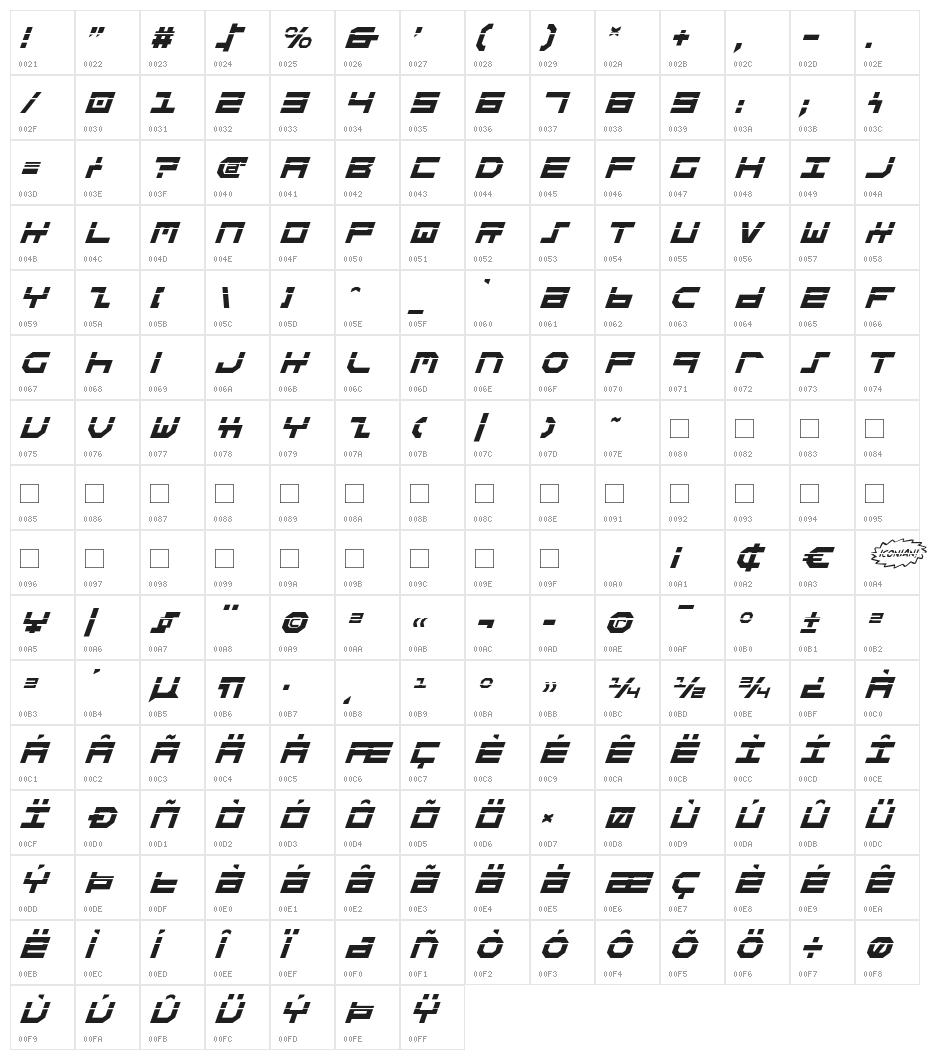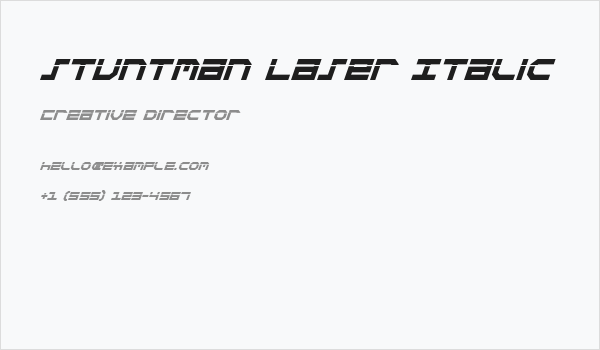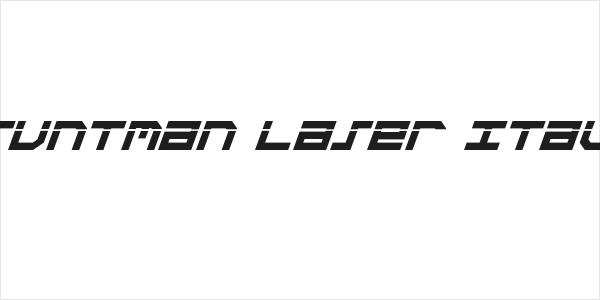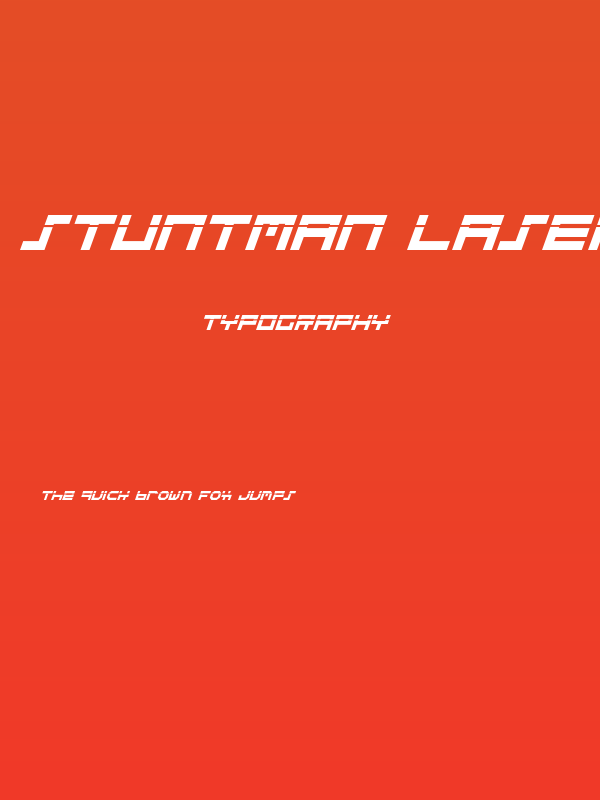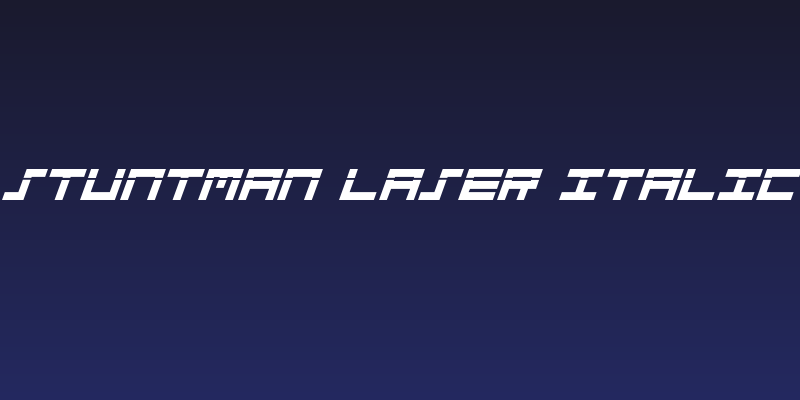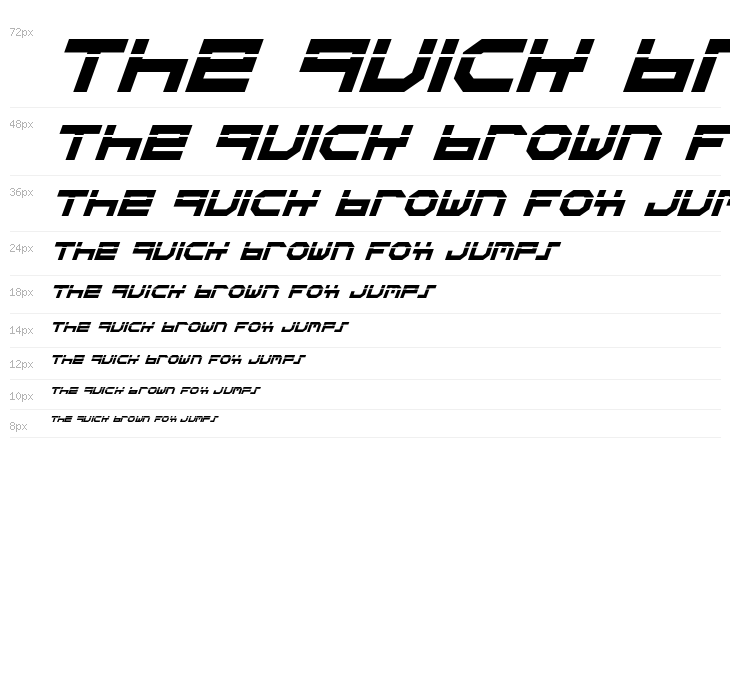
Stuntman Laser Italic Font
Stuntman Laser Italic Description
This font features a futuristic and angular design, characterized by its sharp edges and geometric shapes. The letters are slanted, giving it an italicized appearance, and the style is reminiscent of digital or sci-fi aesthetics. The uppercase and lowercase letters maintain a consistent angular theme, with each character having a unique, bold structure. Numbers and special characters follow the same design principles, ensuring uniformity across the font. The overall look is dynamic and energetic, suitable for projects that require a modern and tech-savvy feel.
| Proposed Projects | Ideal for video game titles, tech branding, sci-fi movie posters, and digital interfaces. |